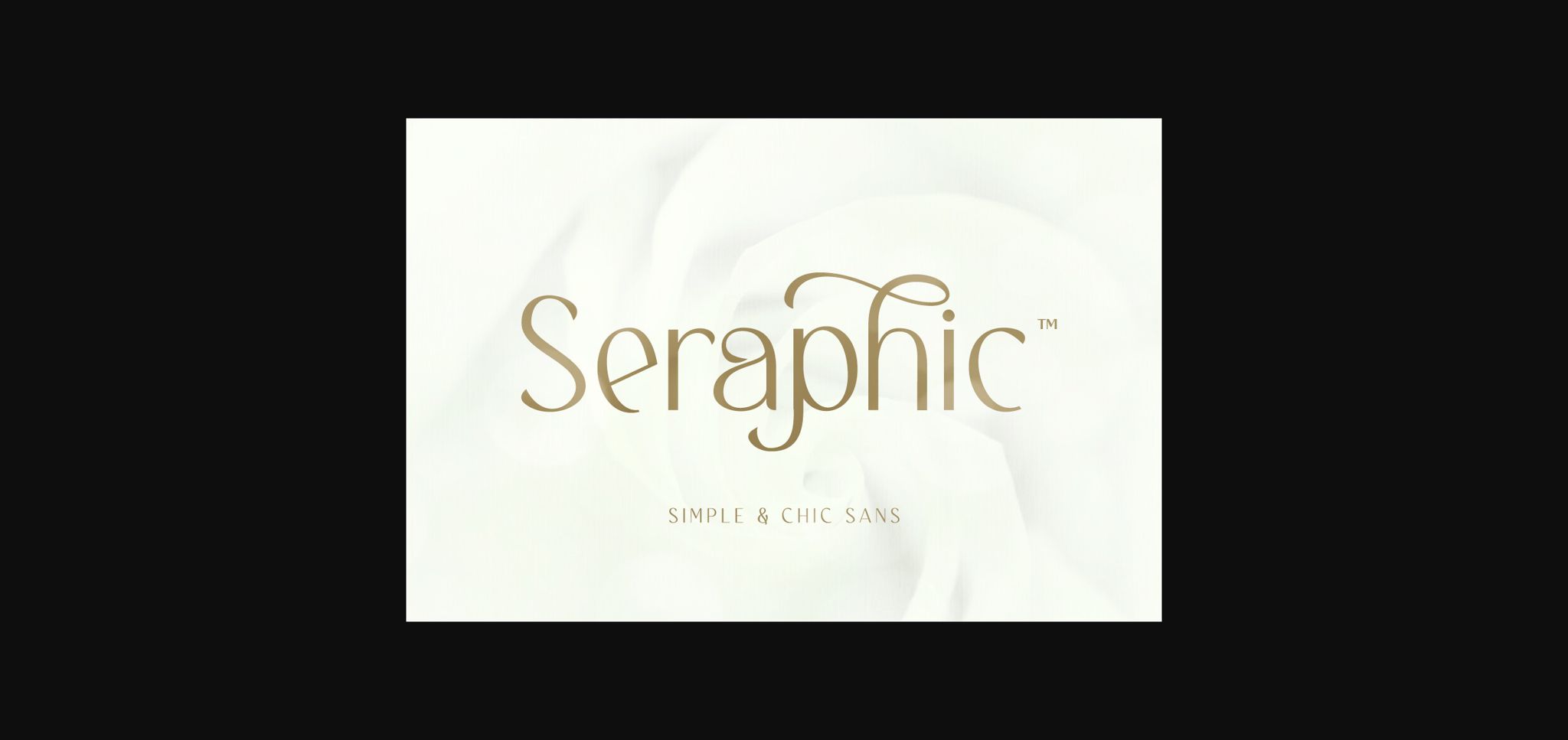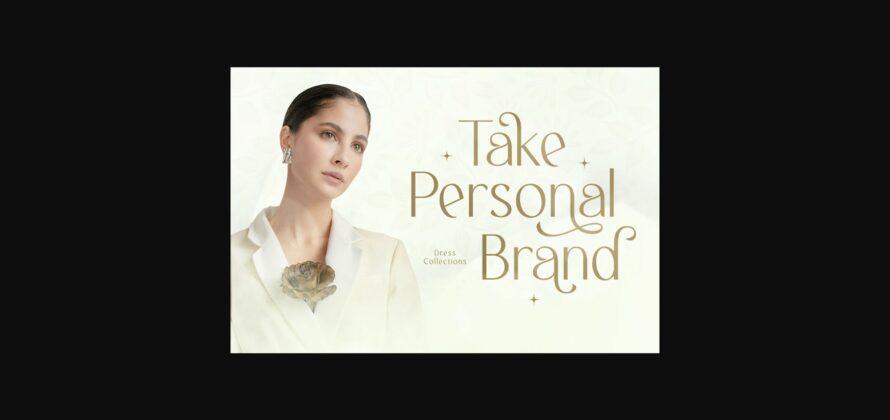
About Seraphic Font
Seraphic is a simple and chic sans-serif font with alternates and ligatures that combine clean and minimalist design elements with subtle stylistic variations and enhanced typographic features. It aims to strike a balance between elegance and simplicity, making it suitable for a wide range of design purposes. The addition of alternates and ligatures provides designers with creative options to customize the typography and add subtle variations, making it a go-to choice for projects that require a simple yet elegant look. You can use this font for weddings, logos, branding, etc.